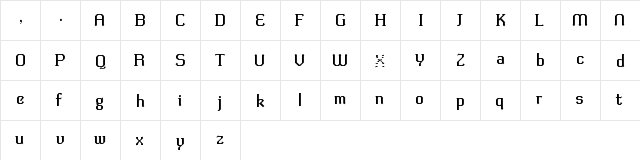
Elvira Regular
| Designer | intaglio |
Design Context for Elvira Typeface
Elvira offers clean, dependable letterforms without strong stylistic allegiance, making it a practical choice for designers who need flexibility.